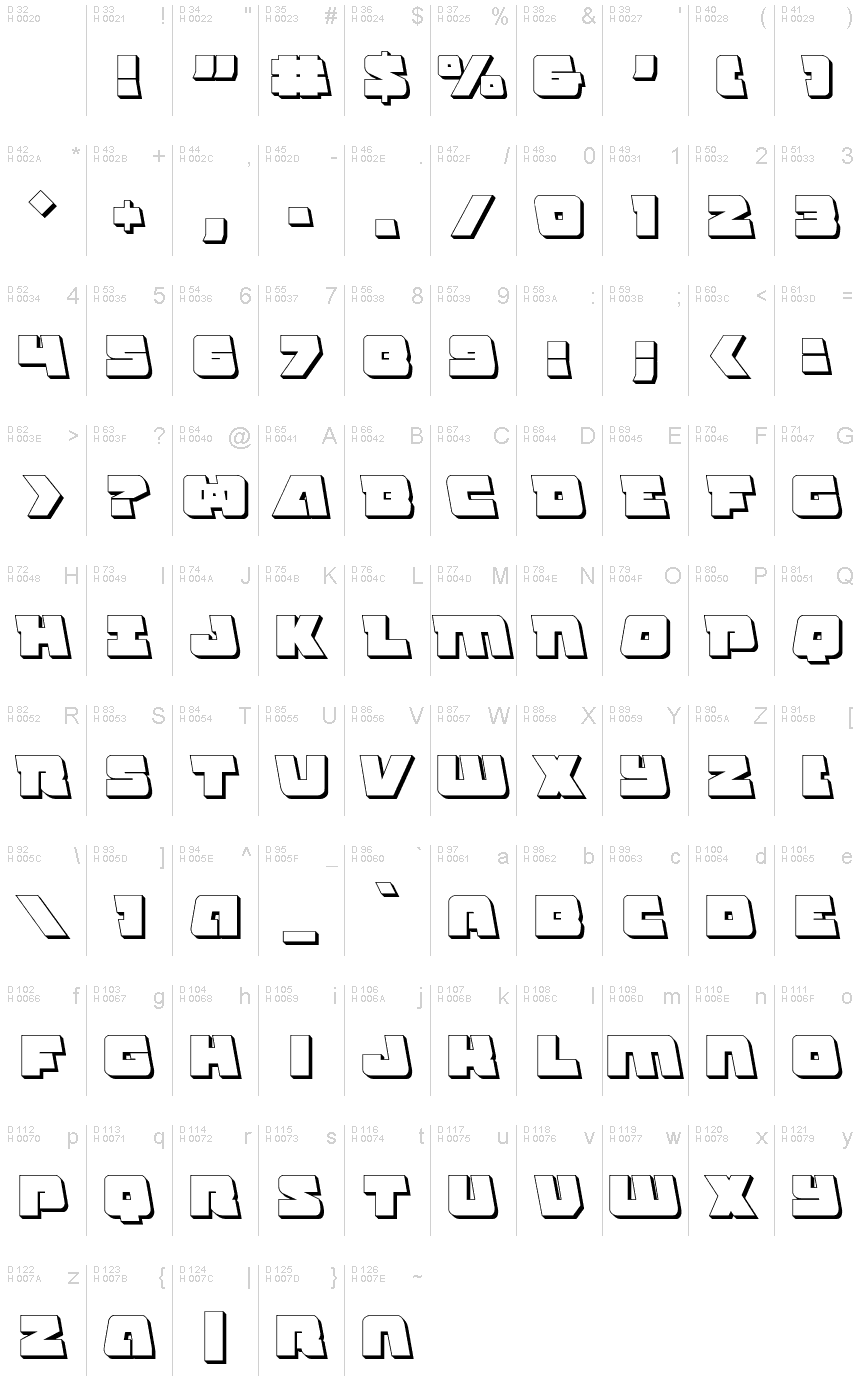
Are you looking for a futuristic font that will make your designs pop? Look no further than Planet Joust 3D. Created by Iconian Fonts, this extra-bold and expanded display font is perfect for projects that need a bold statement. Its unique 3D style adds depth and dimension to any design, making it suitable for logos, posters, and even video game titles. Whether you're designing for sci-fi or sports themes, Planet Joust 3D will give your project the edge it needs to stand out from the crowd.